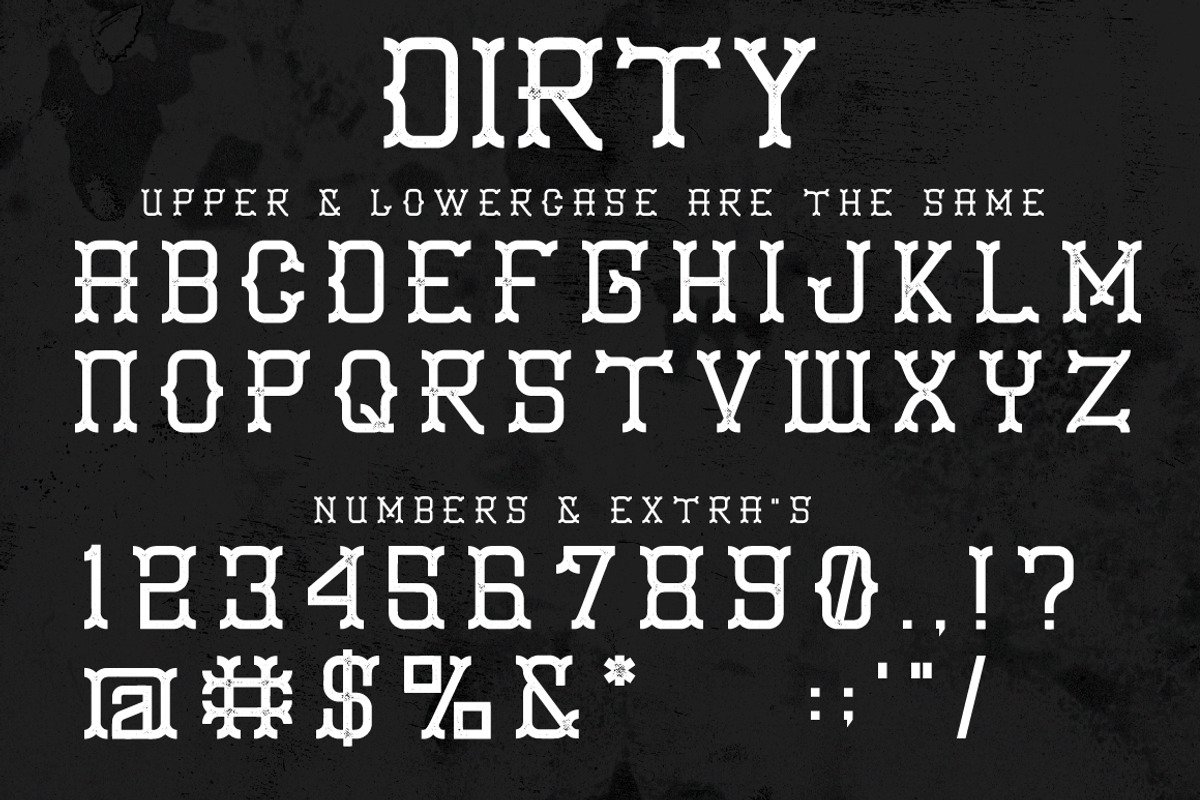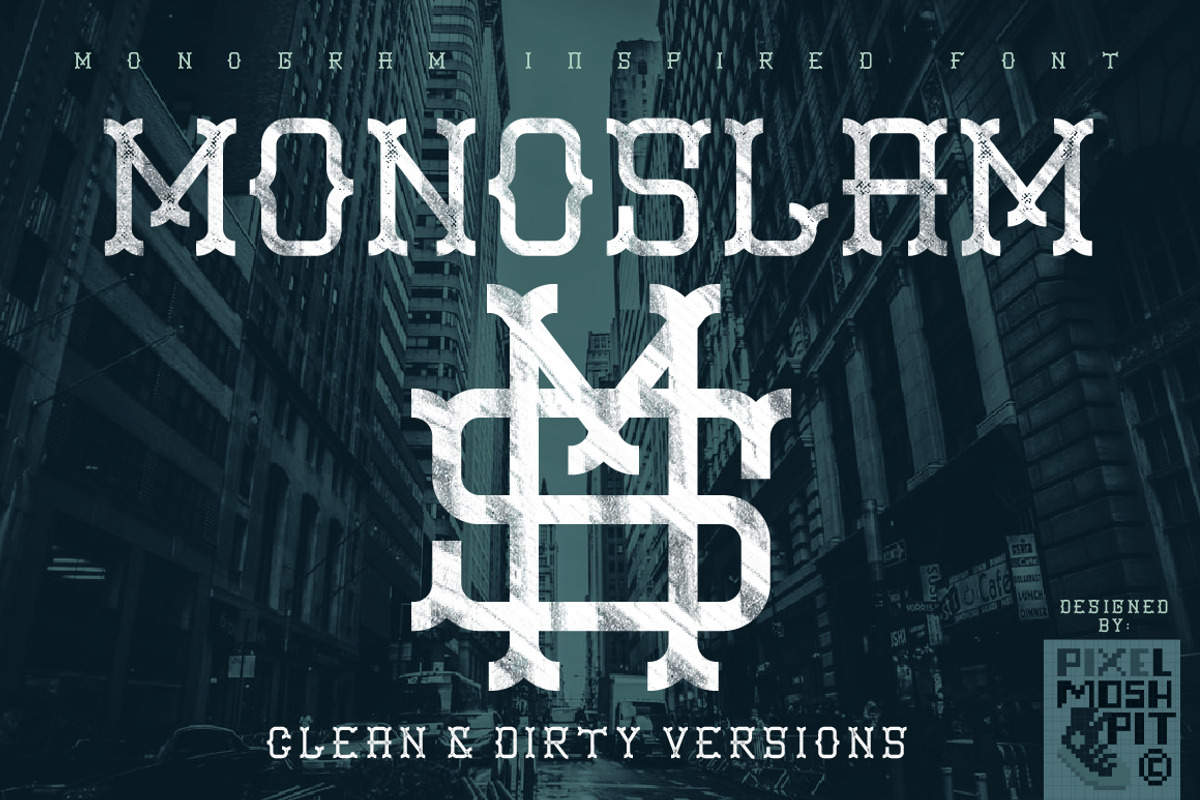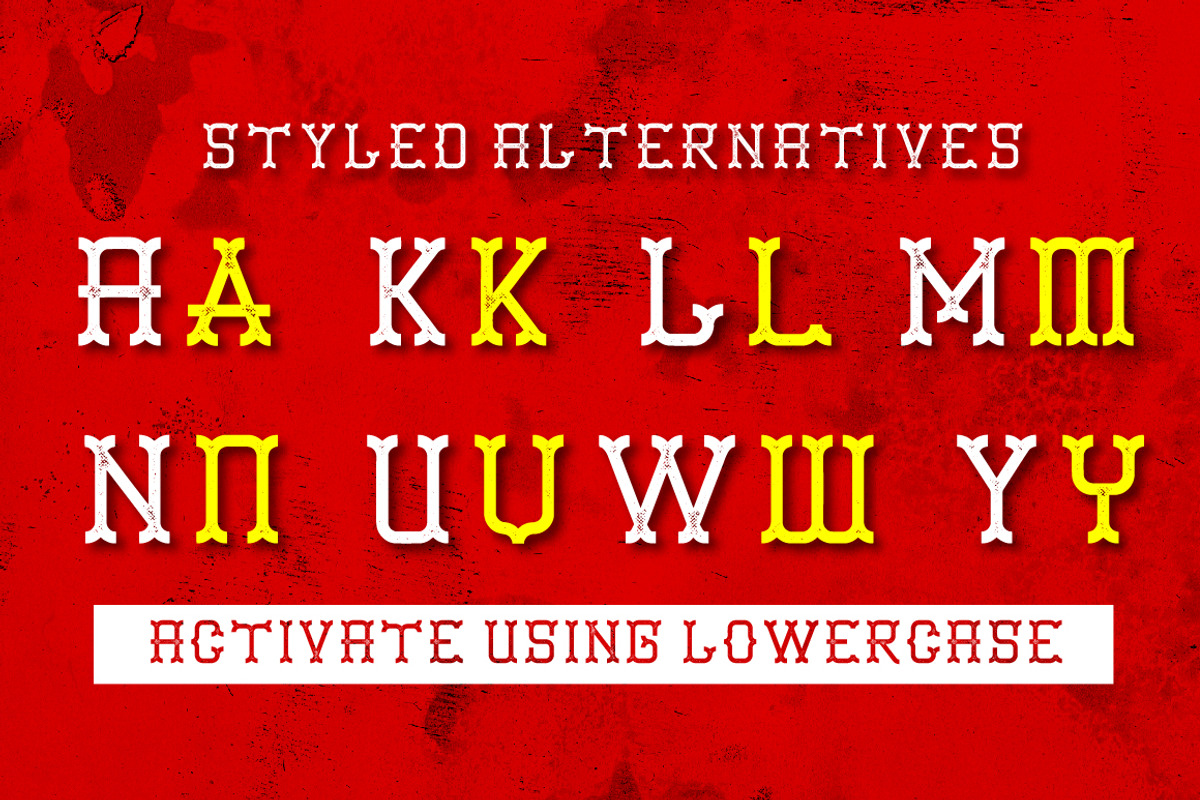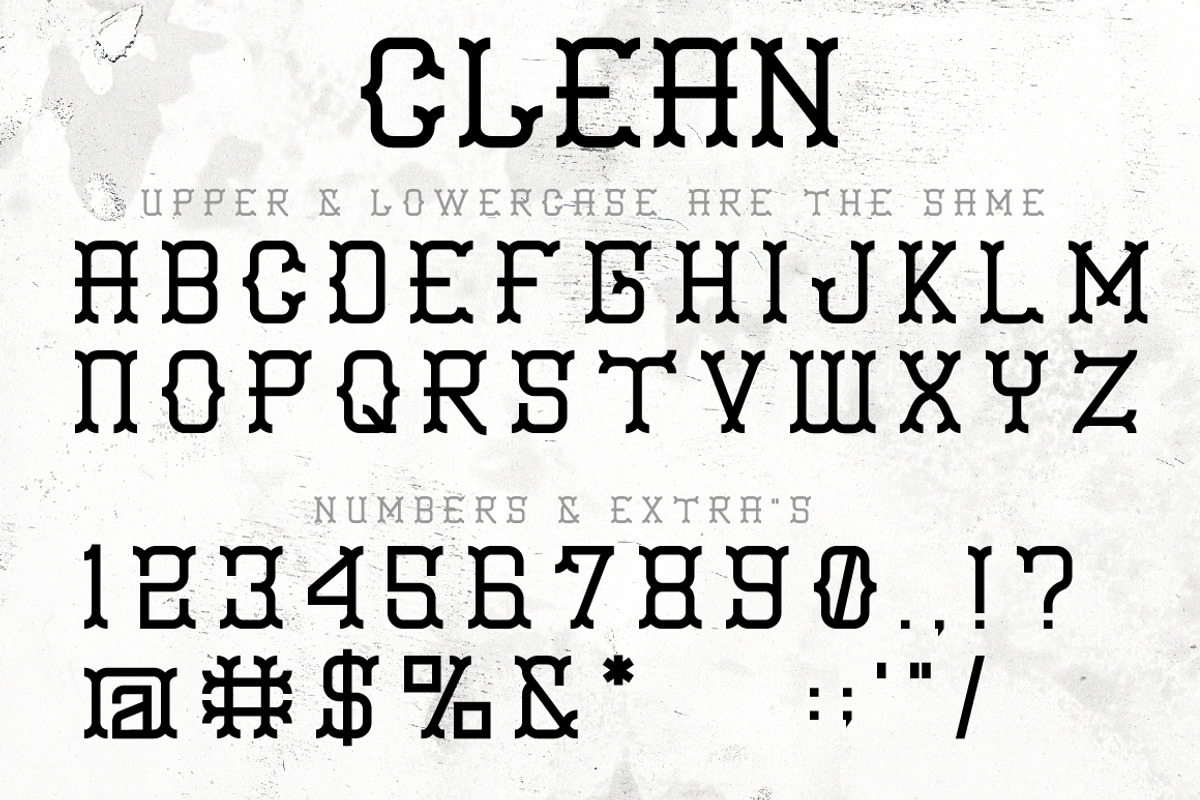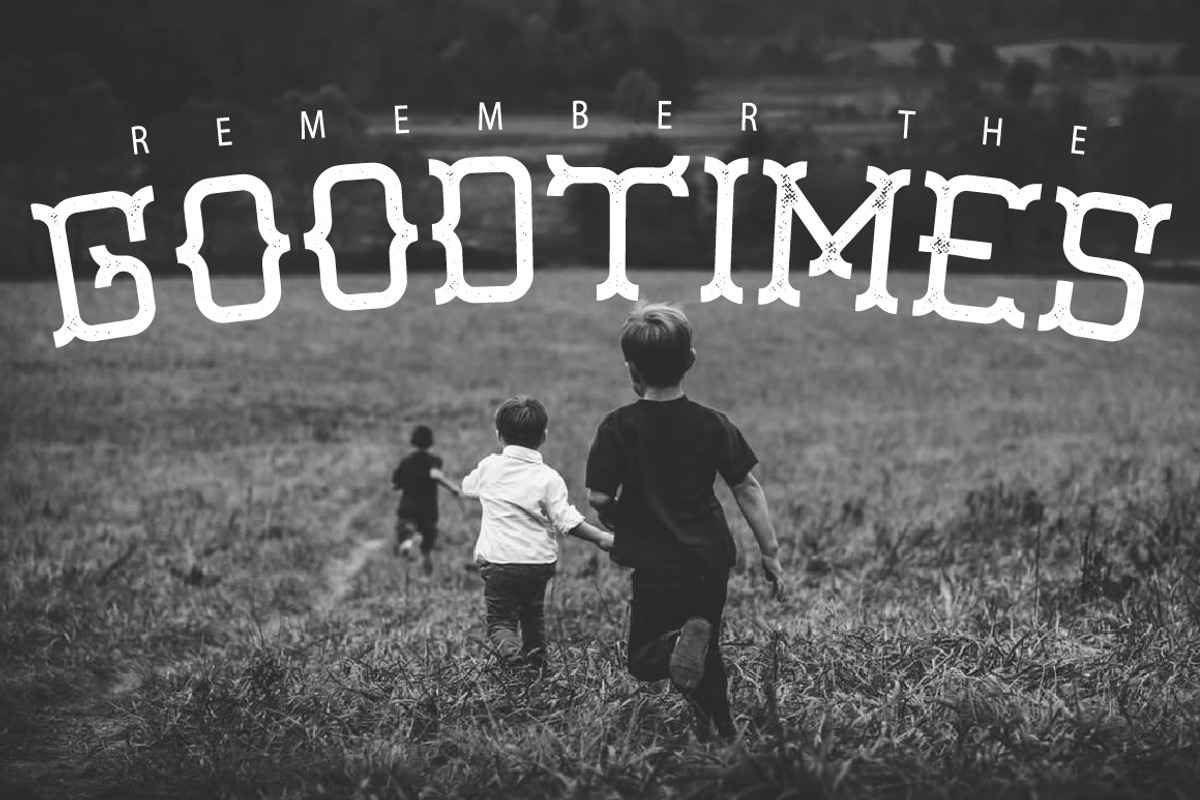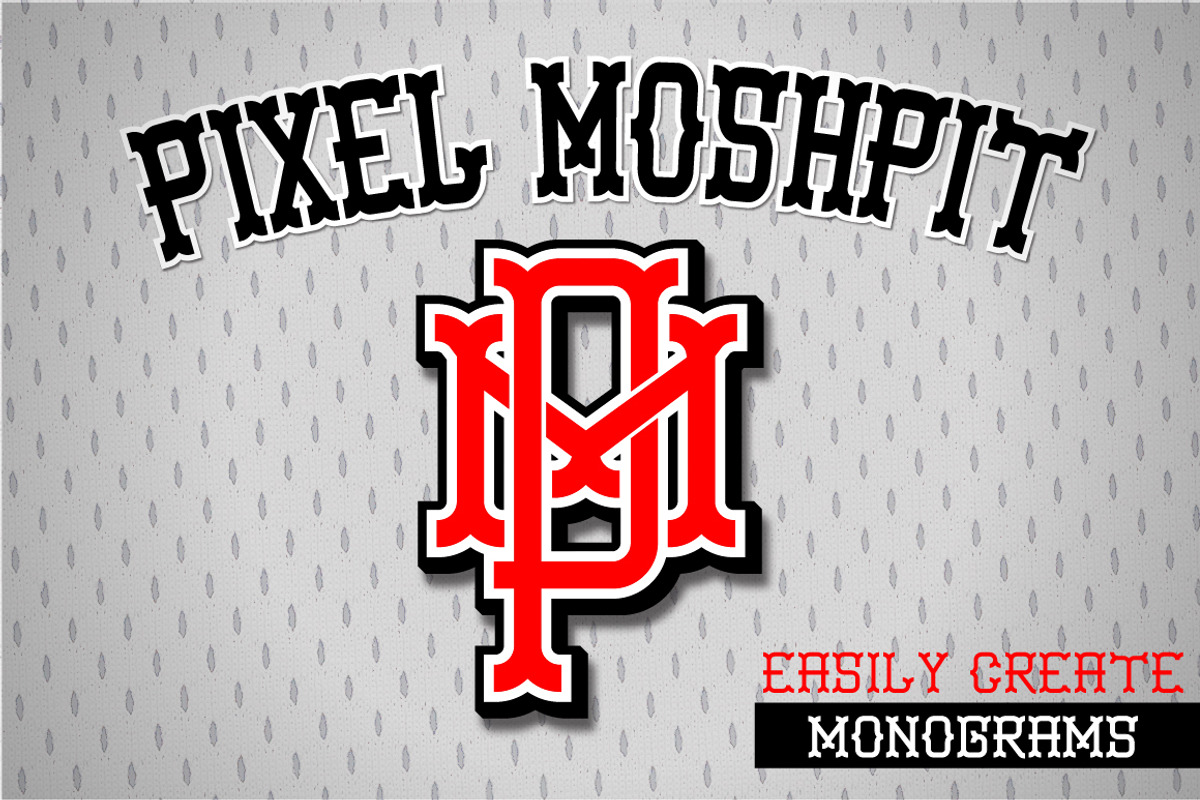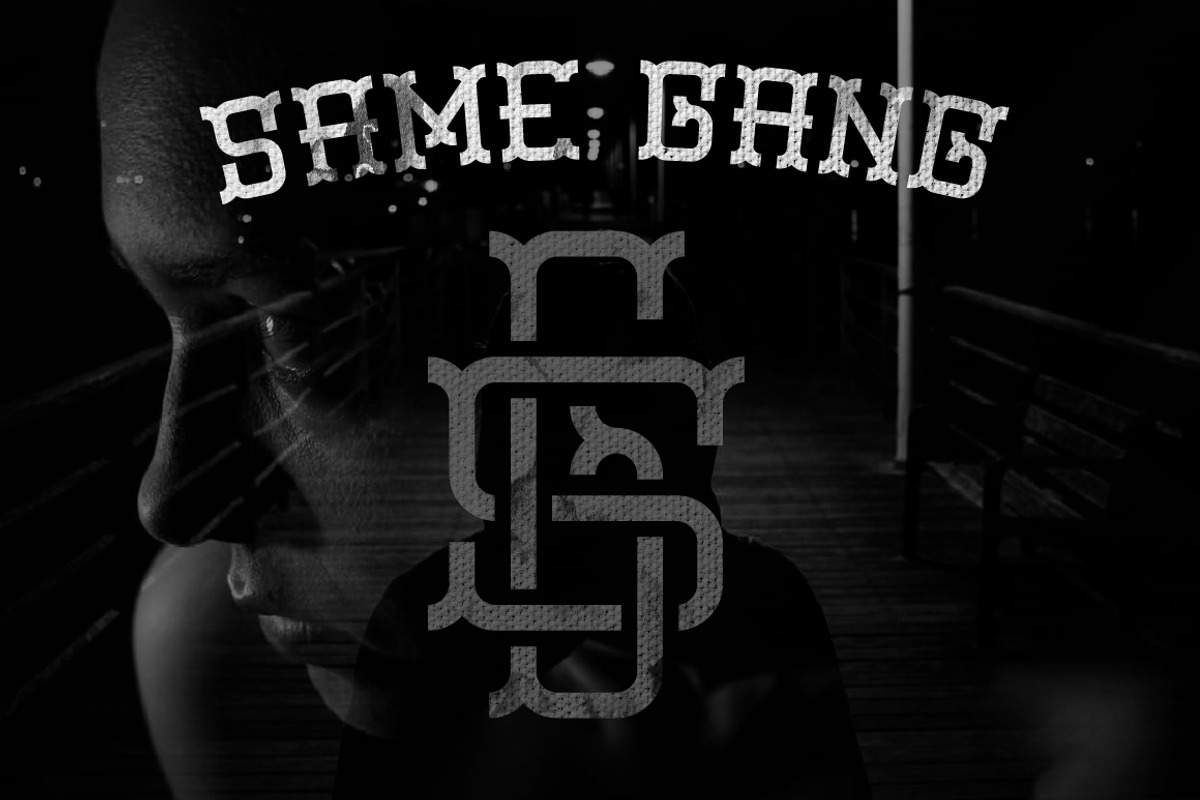
Monoslam Font
Inspired by The old Boston Redsox's Circus style serif font as well as Luis Hernandez's work; we thought we'd have a try at our first font and so you have Monoslam. This font should enable you to create Monogram's like that of past years but in half the time. So what are you waiting for?
Mono(gram) + (grand)Slam = Monoslam